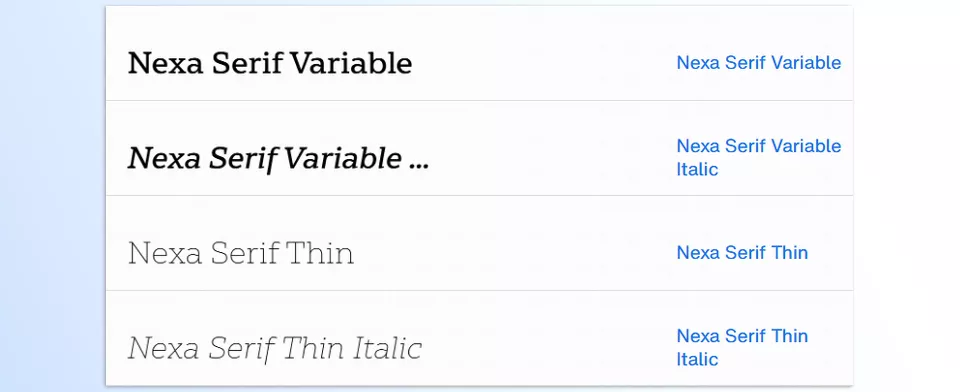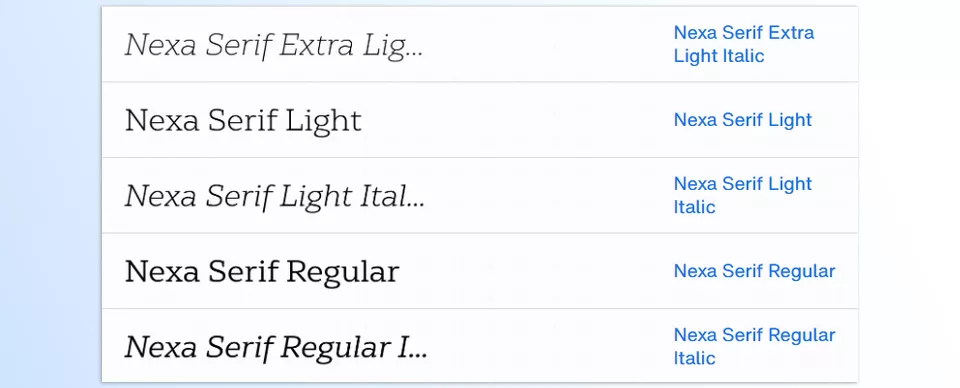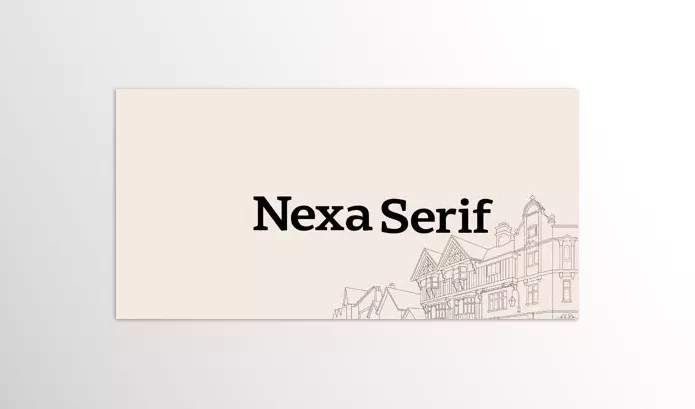
Myfonts – Nexa Serif Font Family is a serif typeface and a font family that was designed it to stand strong on its own. The typeface is a bit rounded compared to Nexa’s geometric шs design, which makes it suitable for striking headlines as well as body text.
Fontfabric – Nexa Serif Font Family Features
• Modern Elegance: Balanced Contrast Cleans Proportions with a Touch of Softness.
• Sans-Serif Style A: Distinct Letterforms and Unique ‘A’, ‘G’, and ‘Y’ inspired by Nexa.
• Versatile Functional Character Options: Distinguished and Stylistic Ligatures.
• Diverse Design Applications: Multiple Weights for A Range of Levels.
• Combines Seamlessly: Strengthens Brand Identity with Nexa or Functions Solo.
• Soothing Approach: Refined Aesthetics·Sophisticated Yet Approachable Design.
Image 1: A refined serif that blends geometric simplicity with intricate detailing, perfect for elegant typography.
Myfonts - Nexa Serif Font Family - A refined serif that blends geometric simplicity with intricate detailing, perfect for elegant typography.
Image 2: Designed for seamless pairing, this typeface offers clarity, sophistication, and versatility in every letterform.
Myfonts - Nexa Serif Font Family - Designed for seamless pairing, this typeface offers clarity, sophistication, and versatility in every letterform.